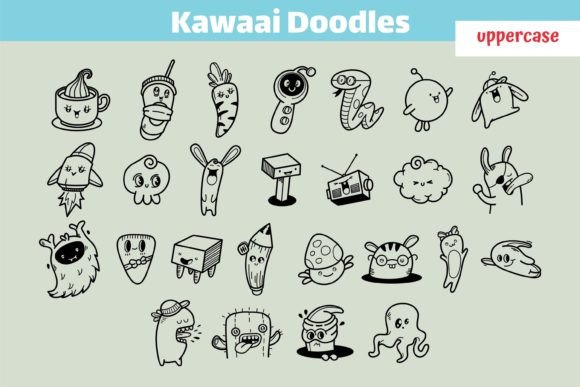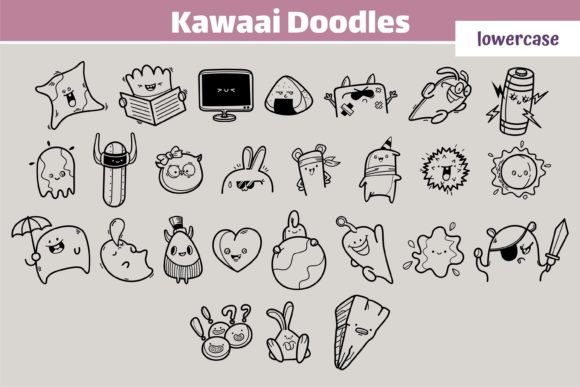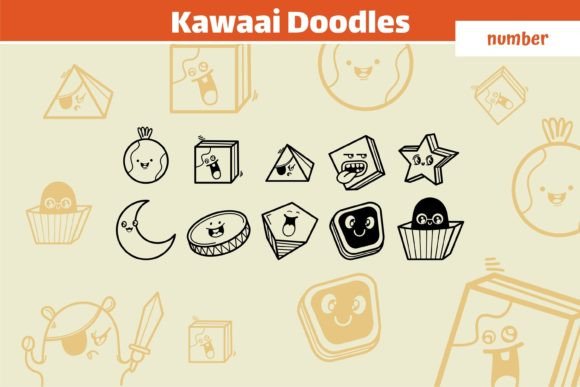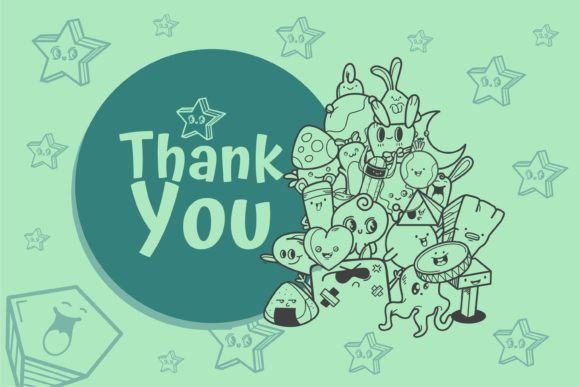
Introduction to Kawaai Doodles Font
Kawaai Doodles is a cute font with cartoon characters and themes.
Its distinct style makes it incredibly fitting to a large pool of designs Whether youโre using it for crafting, digital designing, presentations, or greeting card making, itโs perfect.
Key Features of Kawaai Doodles Font
Why Choose Kawaai Doodles Font?
Kawaai Doodles Font offers exceptional quality and versatility, making it a valuable addition to your design toolkit. Whether you’re creating for personal projects or commercial use, Kawaai Doodles Font delivers professional results.